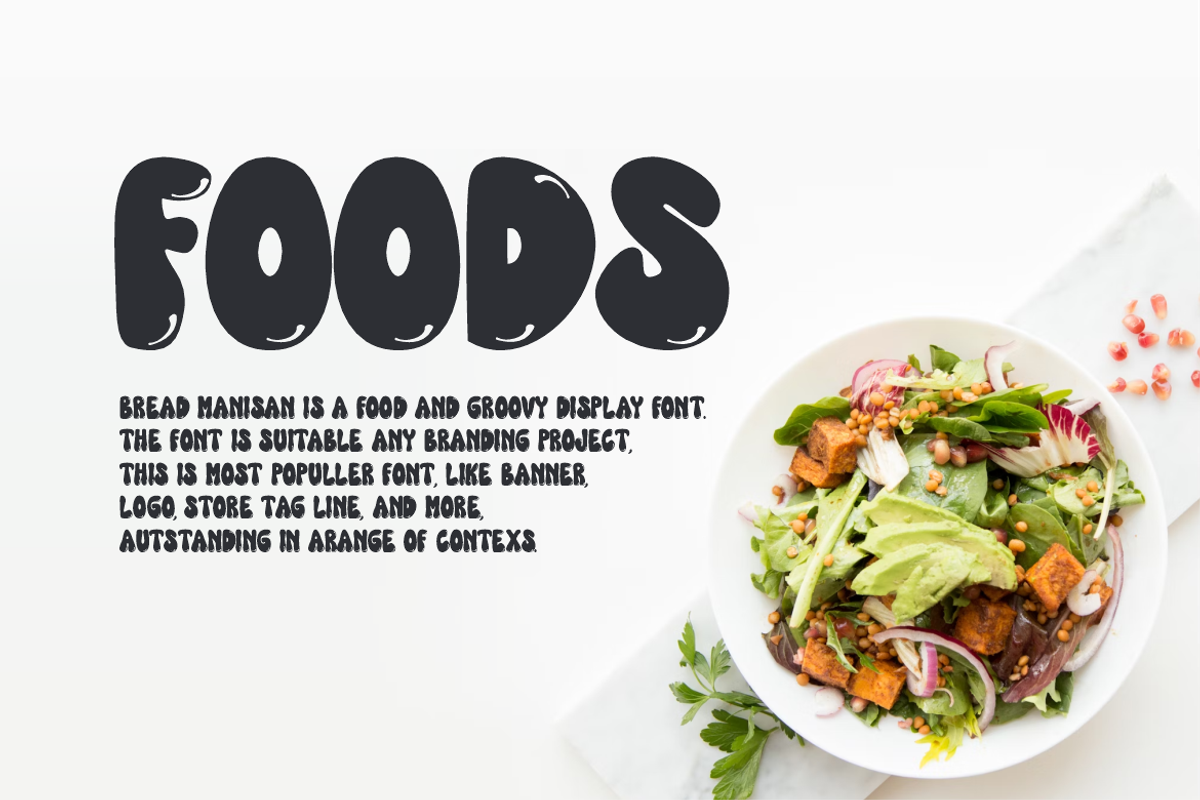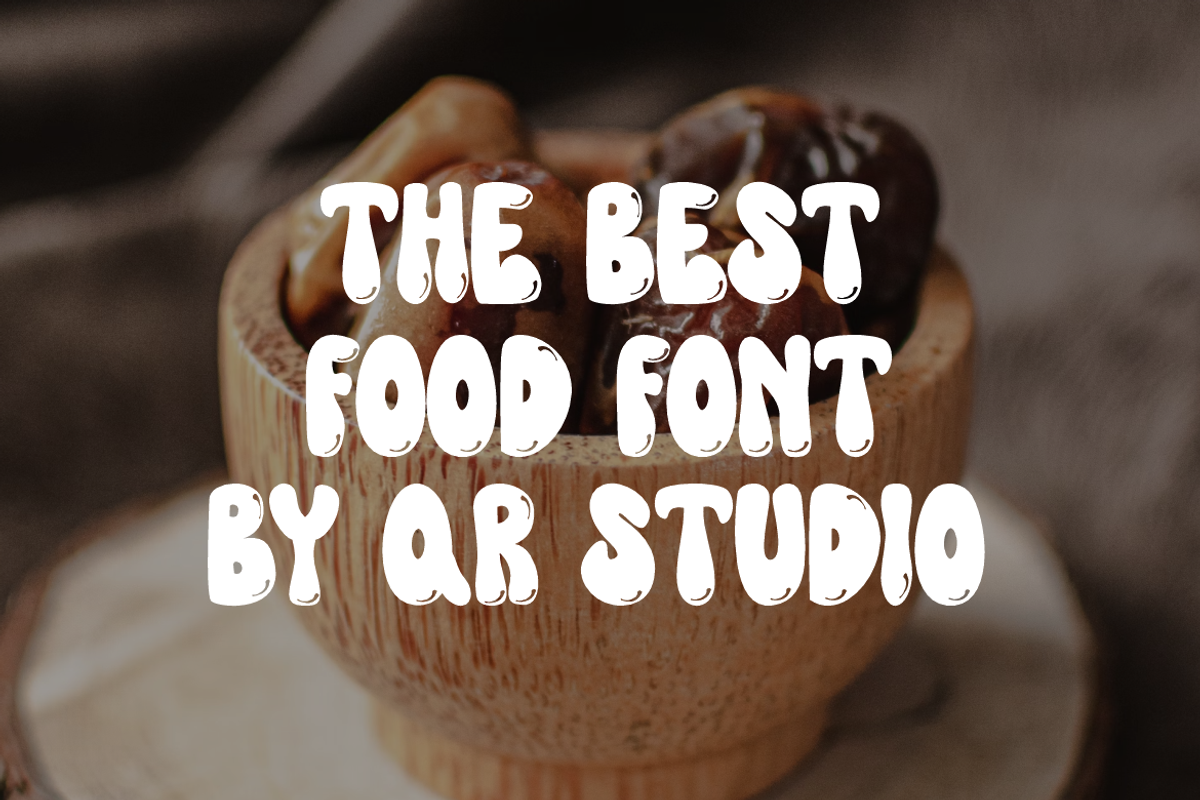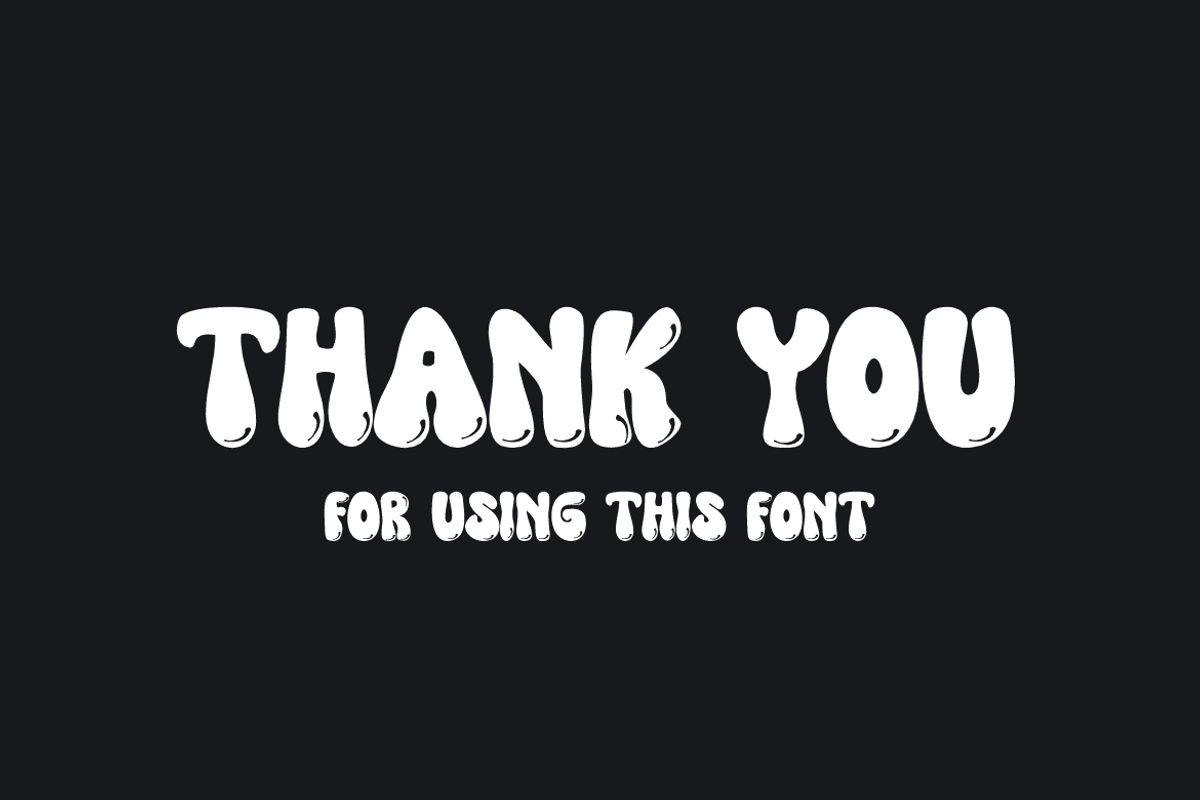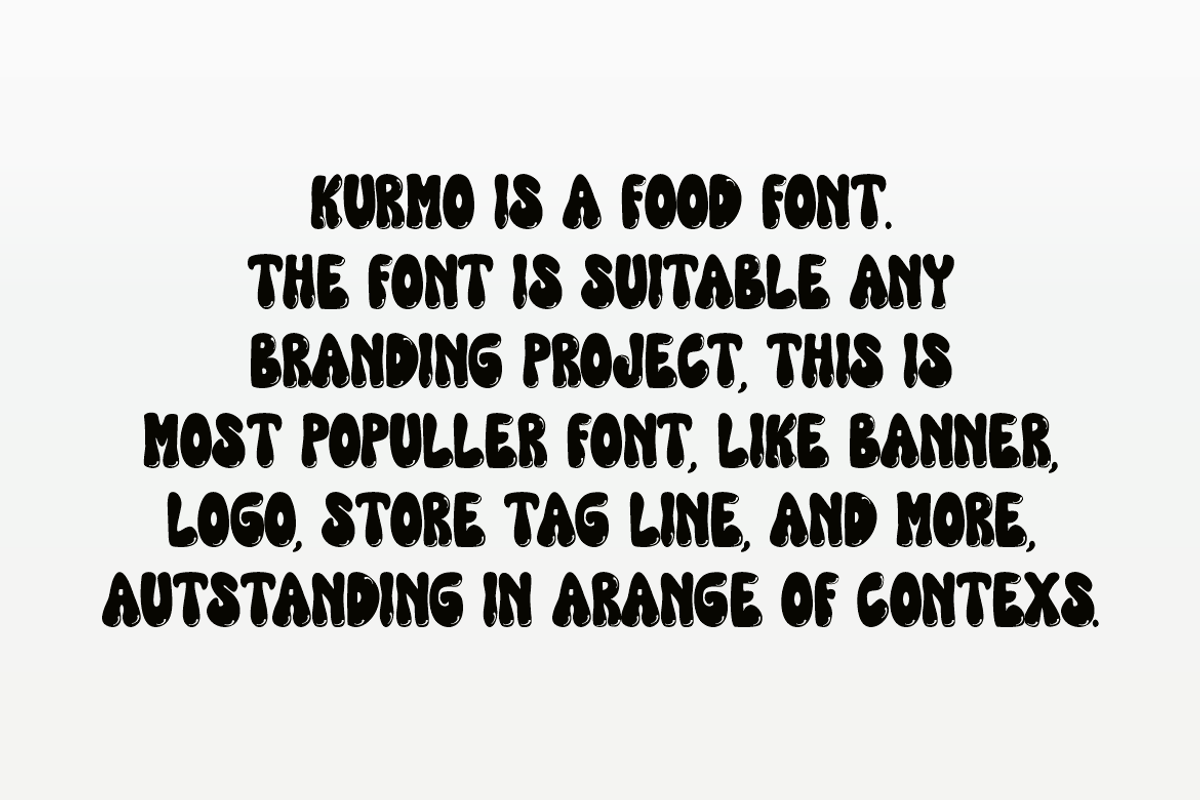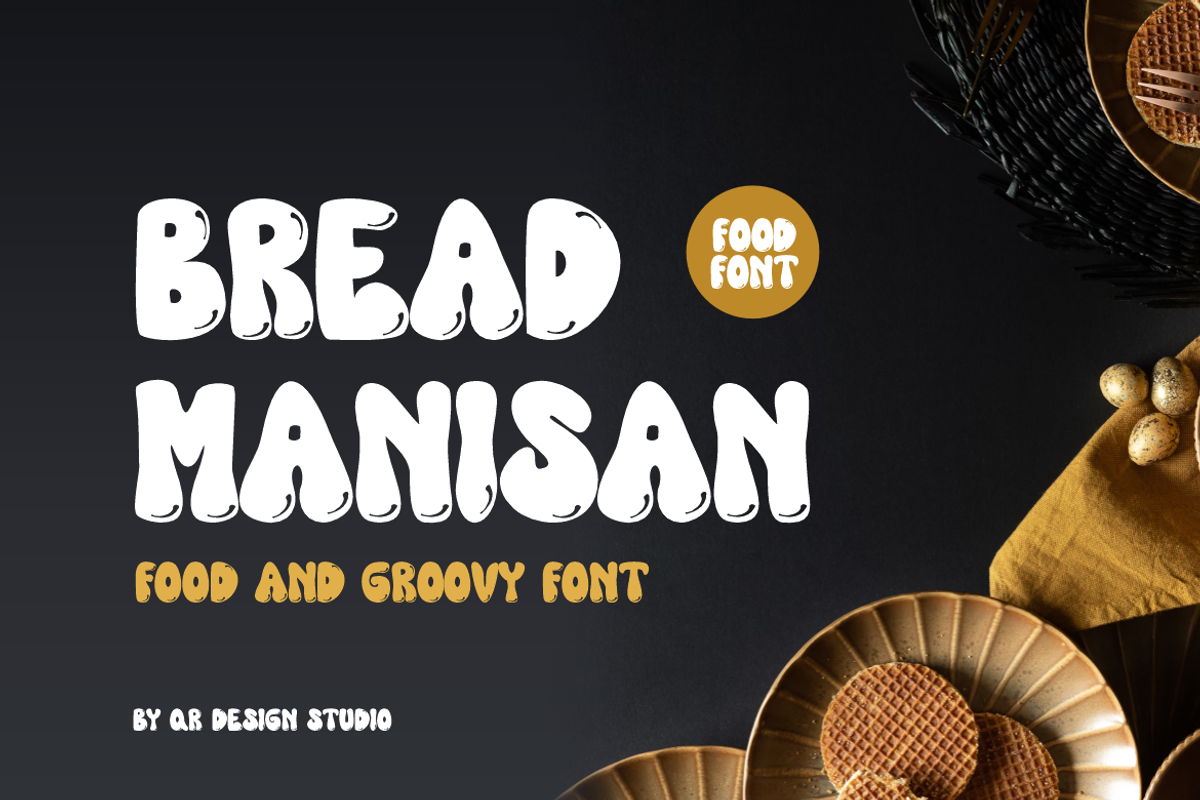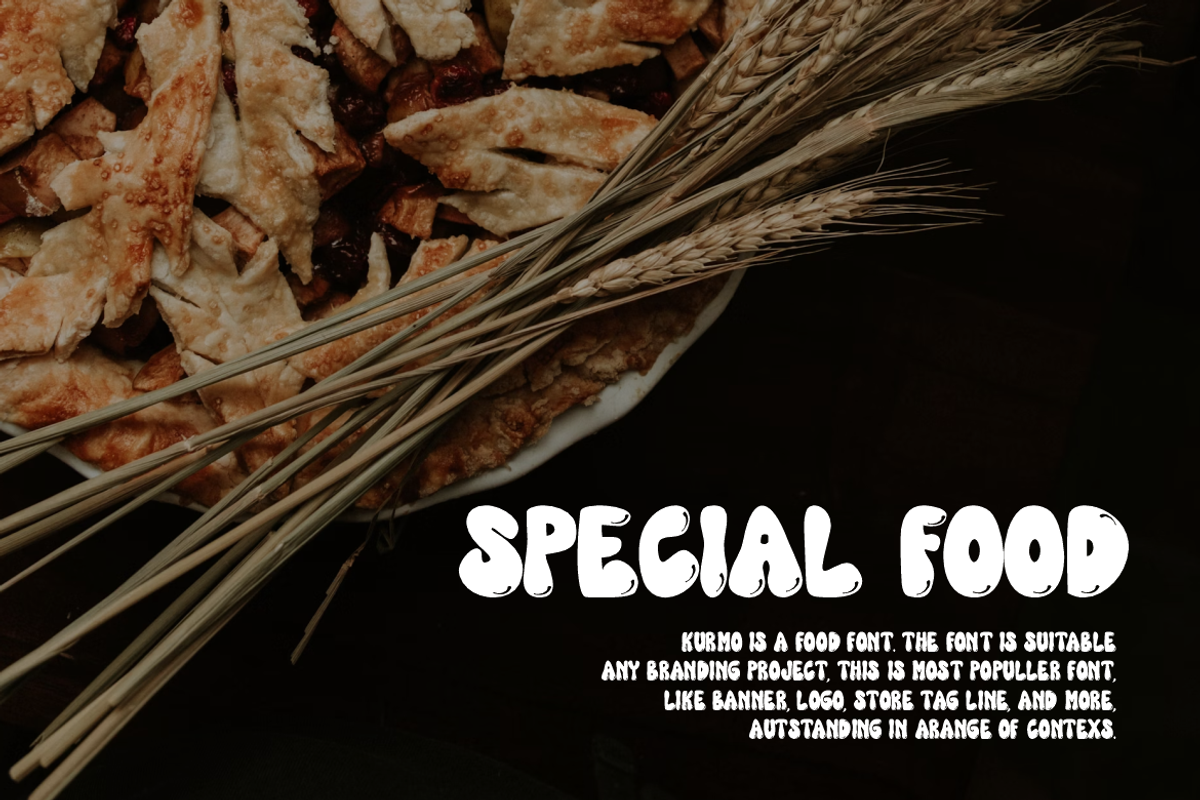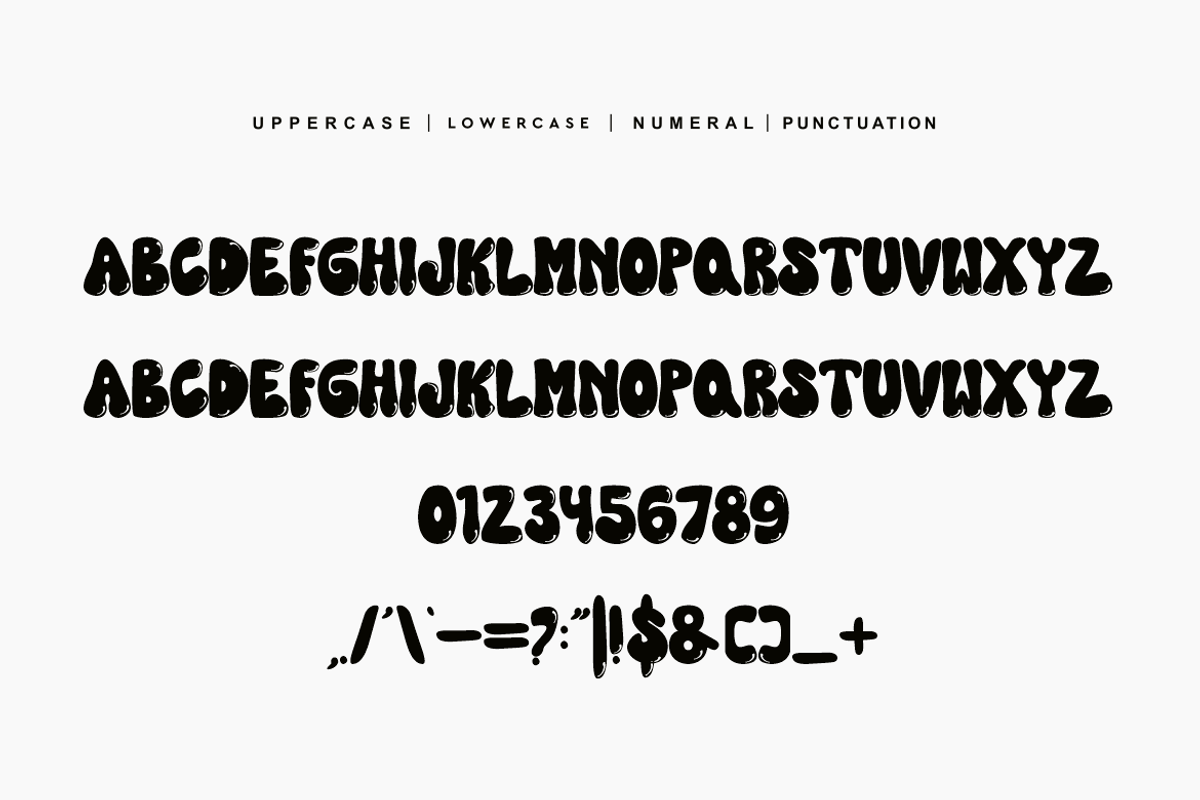
Bread Manisan - Groovy & Food Font
Bread Manisan Font is a bold and authentic display font. The font is suitable for any branding project like food, poster, logo, sport, and many more. Outstanding in a wide range of contexts.